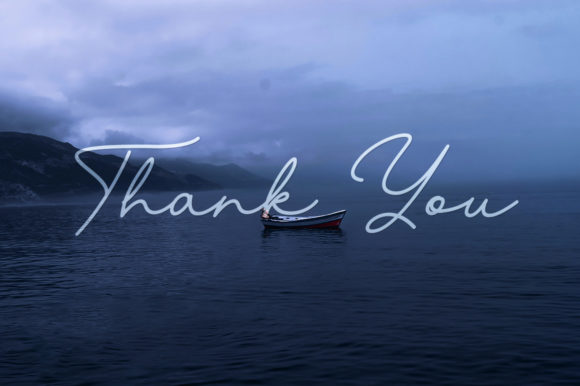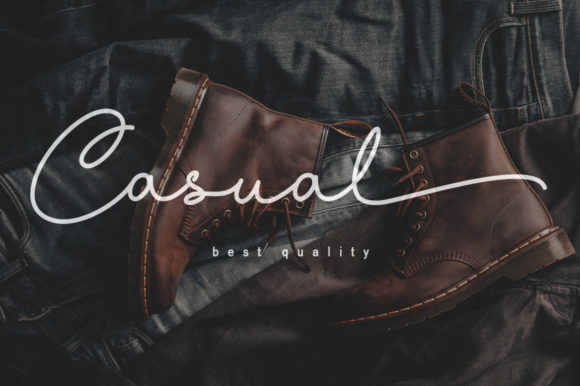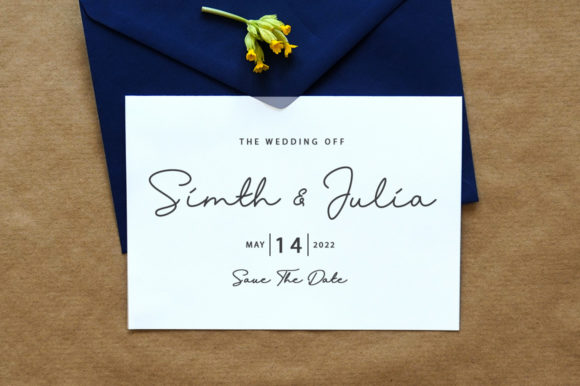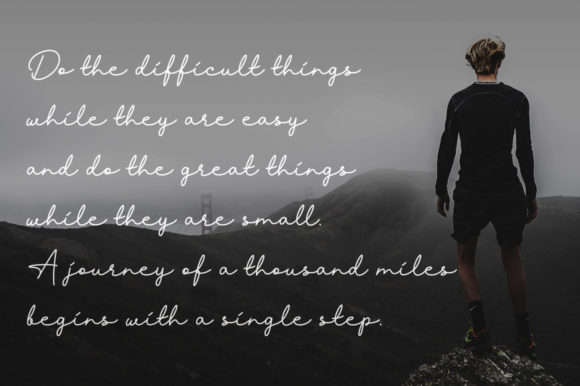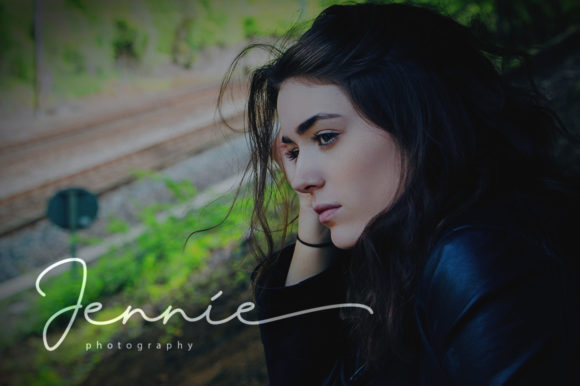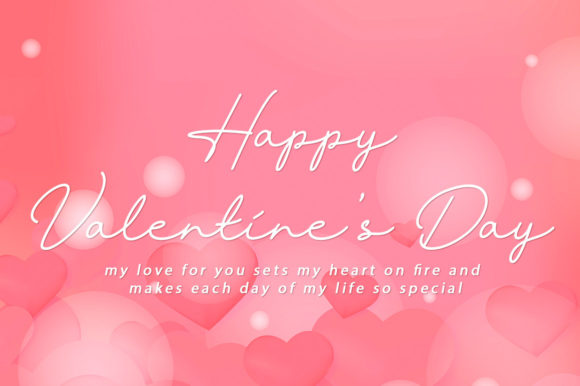
Introducing Hanum Font: Elevate Your Designs with Elegance and Sophistication
In the world of typography, a signature script font can make all the difference in creating stunning visual designs. Meet Hanum Font, a classy and elegant script font that is perfect for designers and crafters looking to add a touch of sophistication to their projects. In this article, we’ll dive into the features and benefits of Hanum Font, and explore how it can elevate your designs to the next level.
What is Hanum Font?
Hanum Font is a beautifully crafted signature script font that exudes elegance and refinement. Its flowing lines and curves create a sense of movement and fluidity, making it perfect for a wide range of design applications. Whether you’re creating a logo, branding materials, or digital products, Hanum Font is sure to impress.
Key Features of Hanum Font
- Elegant and Classy Style: Hanum Font boasts a sophisticated and refined style that is sure to add a touch of luxury to your designs.
- PUA Encoded: Hanum Font is PUA (Private Use Area) encoded, which means you can access a wide range of glyphs and ligatures with ease. This feature allows you to create stunning text arrangements and add an extra layer of creativity to your designs.
- Versatile: Hanum Font can be used for a wide variety of products, including logos, branding materials, digital products, and more.
Benefits of Using Hanum Font
So, why choose Hanum Font for your design projects? Here are just a few benefits of using this stunning script font:
- Adds Elegance and Sophistication: Hanum Font adds a touch of elegance and sophistication to your designs, making them stand out from the crowd.
- Increases Versatility: With Hanum Font, you can create a wide range of design products, from logos and branding materials to digital products and more.
- Easy to Use: Hanum Font is PUA encoded, making it easy to access and use a wide range of glyphs and ligatures.
Who Can Benefit from Hanum Font?
Hanum Font is perfect for a variety of designers and crafters, including:
- Graphic Designers: Add a touch of elegance and sophistication to your designs with Hanum Font.
- Log designers: Create stunning logos and branding materials with Hanum Font.
- Crafters: Use Hanum Font to create beautiful digital products, such as printable art and SVG files.
- Branding Experts: Elevate your brand’s visual identity with Hanum Font.
Tips for Using Hanum Font
Here are a few tips for getting the most out of Hanum Font:
- Experiment with Different Sizes and Colors: Hanum Font looks great in a variety of sizes and colors, so don’t be afraid to experiment and find the perfect combination for your design.
- Pair with Other Fonts: Hanum Font pairs well with a variety of other fonts, so try pairing it with a sans-serif font for a contrasting look.
- Use the Glyphs and Ligatures: Take advantage of Hanum Font’s PUA encoding and use the glyphs and ligatures to add an extra layer of creativity to your designs.